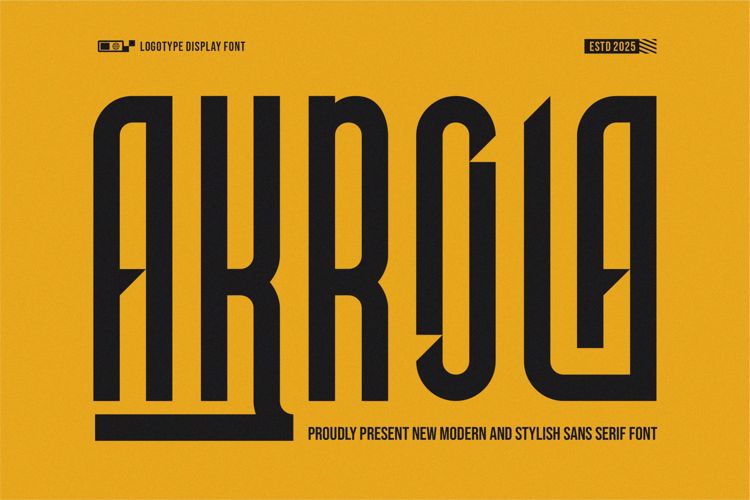
Akrola Font
Akrola Condensed Sans Serif is a modern and stylish font type for all branding and logo designs. This modern and stylish sans serif font has a beautiful character. This font is suitable for invitation card designs, cool logos, movie titles, movie names, business cards, book titles, brand names, and various other designs. Akrola Condensed Sans Serif is a smooth sans serif font that exudes sophistication and the moment. Its stylish ligatures make this font a perfect partner for any project.
- Ligature
- Uppercase and lowercase
- Numbering and Punctuation